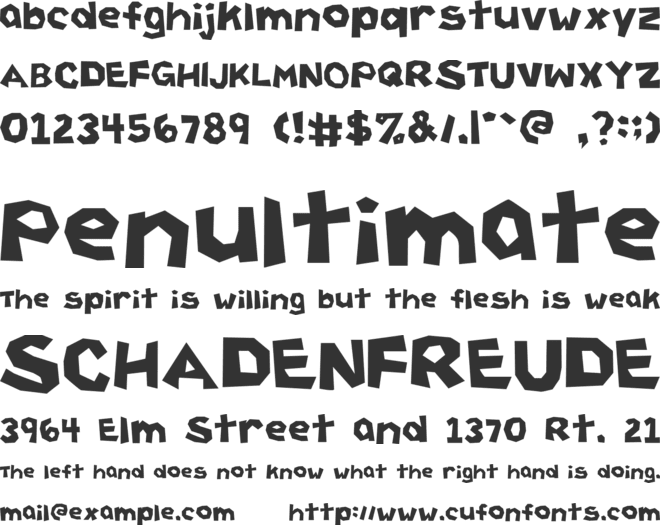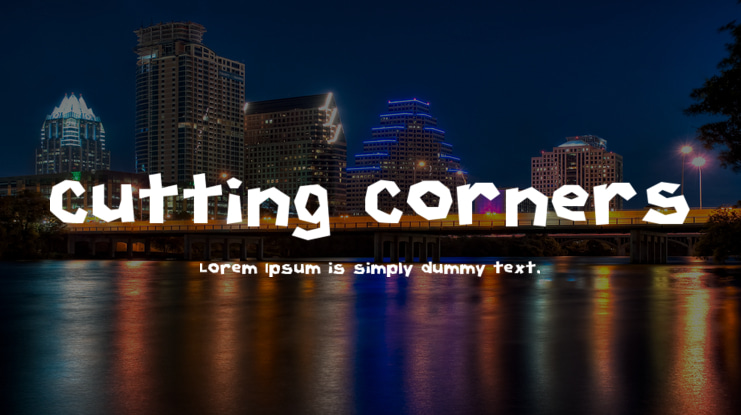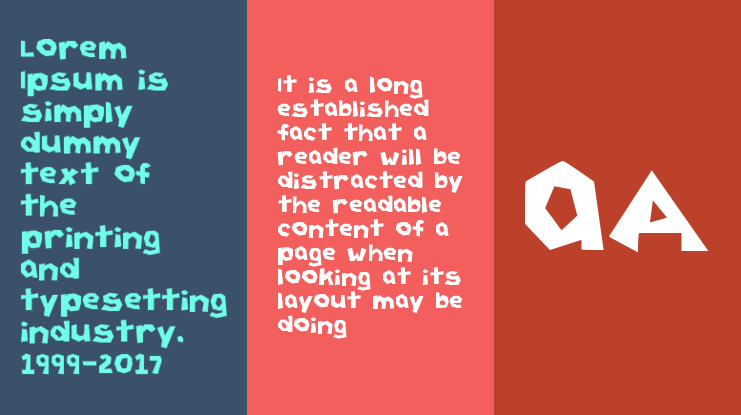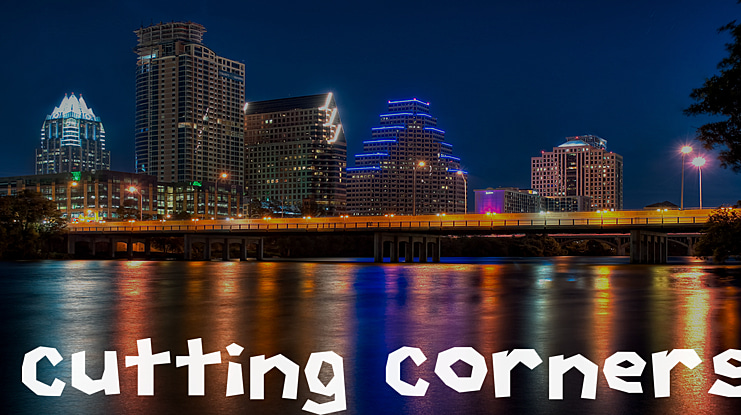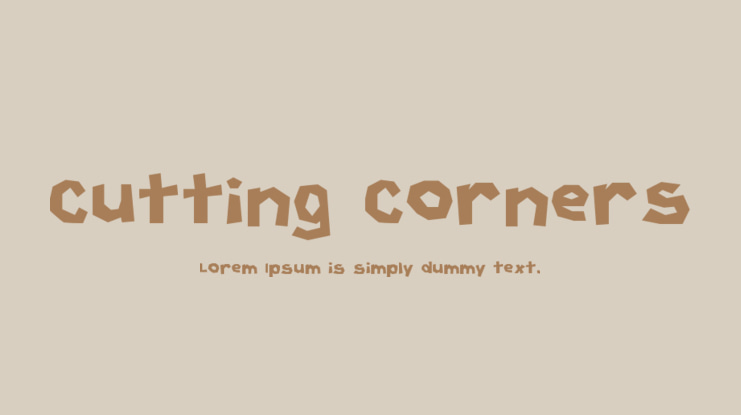
Cutting Corners Font
A nice fun-looking angly font that I made after going through my dad's stash of nuts and bolts in the garage. I was originally going to call this Gearification but Cutting Corners sounds like more fun doesn't it?